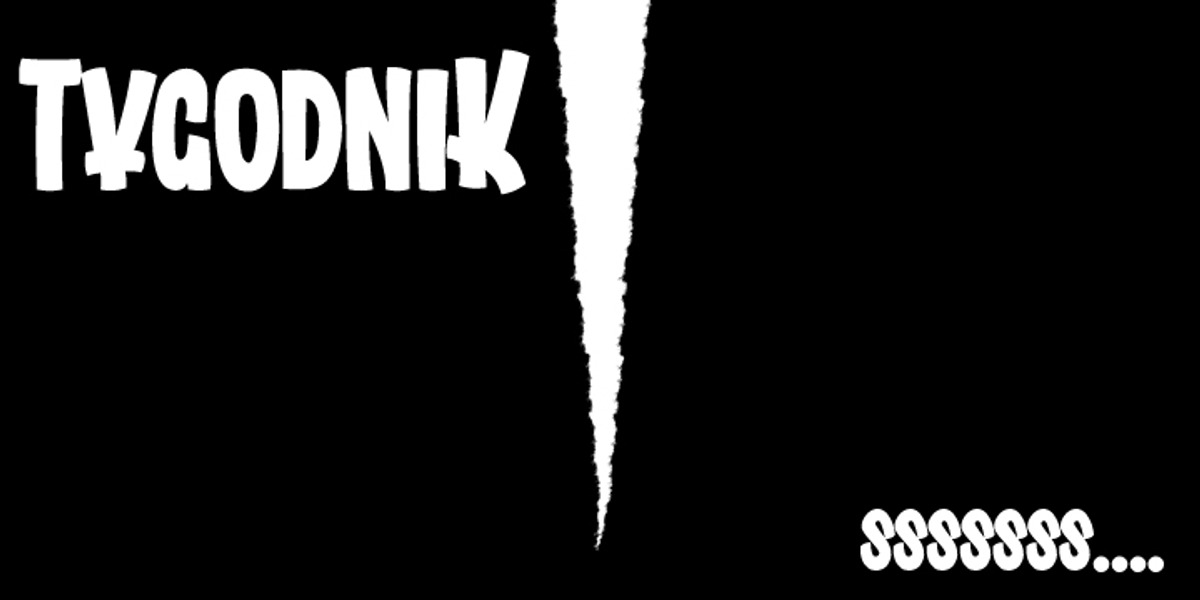
Tygodnik
Tygodnik is a retro-inspired geometric sans serif font. Its bouncy letterforms and the inclusion of small caps give it a playful personality. The uneven letter widths add a touch of quirkiness to the design. It's well-suited for display purposes like posters due to its bold, eye-catching style.